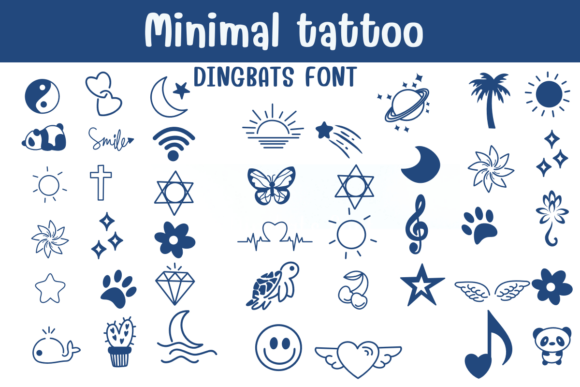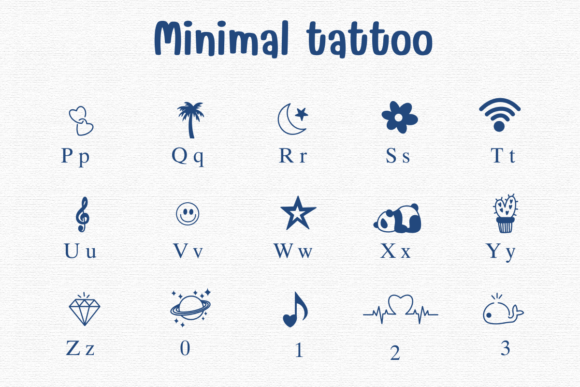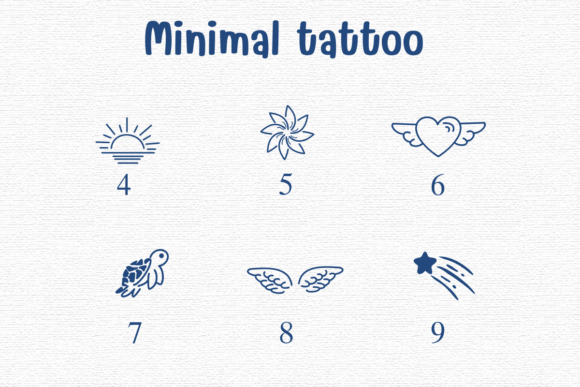
Minimal Tattoo Font
About the Minimal Tattoo Font
Let us introduce you to Minimal Tattoo Font, where timeless design meets modern craftsmanship. Minimal Tattoo is a clean and stylish dingbats font featuring popular tattoo icons like moons, stars, hearts, flowers, and symbols—all in a simplified, minimal line-art style. It’s perfect for tattoo flash sheets, aesthetic graphics, spiritual branding, and social media stickers.
Its minimalist style makes it ideal for headlines, short captions, and logos where the icons can be impactful visual elements. It shines in projects emphasizing a modern, slightly rebellious aesthetic, such as branding for a tattoo parlor, streetwear apparel, or a music festival. Avoid using it for body text or lengthy paragraphs; the limited character set and thin lines make it unsuitable for extended reading.
Pairing Minimal Tattoo with a clean sans-serif like Montserrat or a geometric sans-serif like Futura adds a contemporary contrast and enhances readability when used alongside the dingbats. For a softer feel, consider pairing it with a delicate script font like Great Vibes. This combination allows the tattoo icons to stand out while maintaining visual harmony.
The overall personality of Minimal Tattoo is modern, edgy, and subtly playful. Its simplicity lends itself to versatile applications, but its strength lies in its ability to create a memorable visual impact within a concise design.